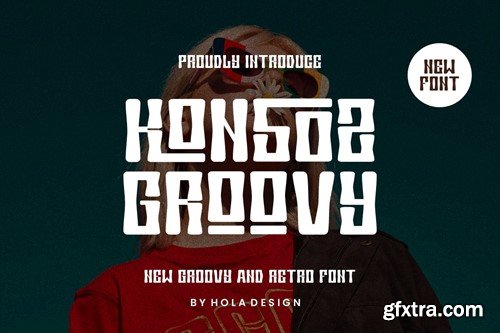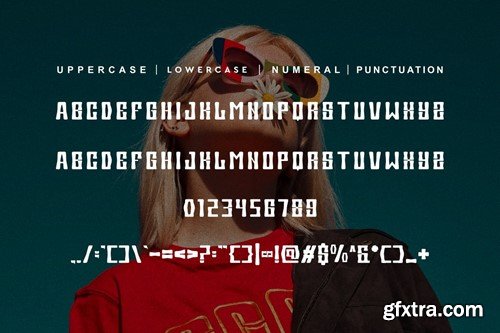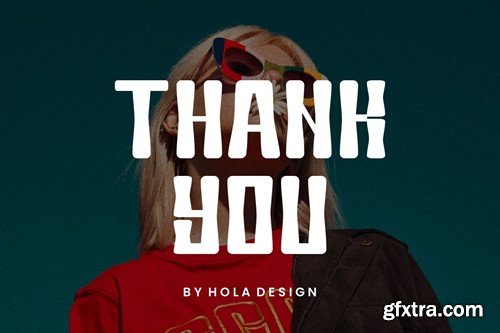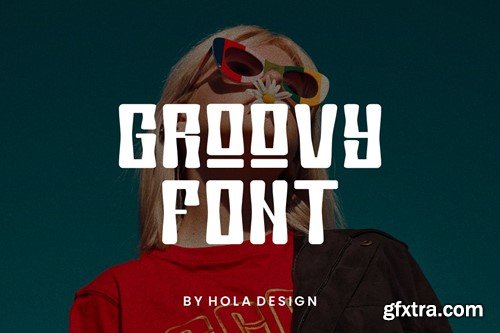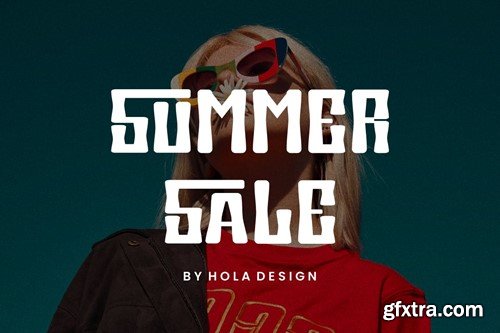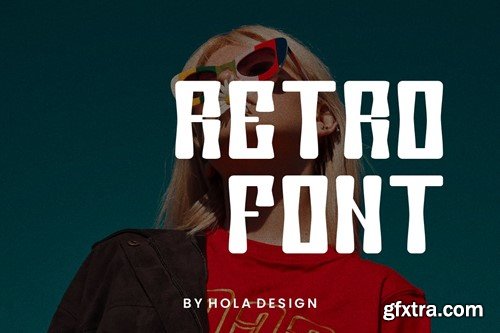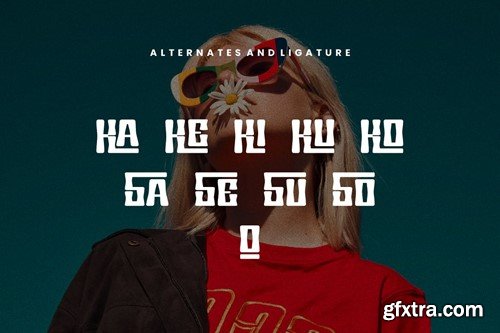
Konsoz Groovy - Groovy & Retro Font NDY2NQH
Konsoz Groovy - Groovy & Retro Font
Konsoz Groovy - Rustic & Retro Font Font is unique . Ready to use for your design like labeling, movie sceen, poster, movie title, gigs, album covers, logos, and much more.